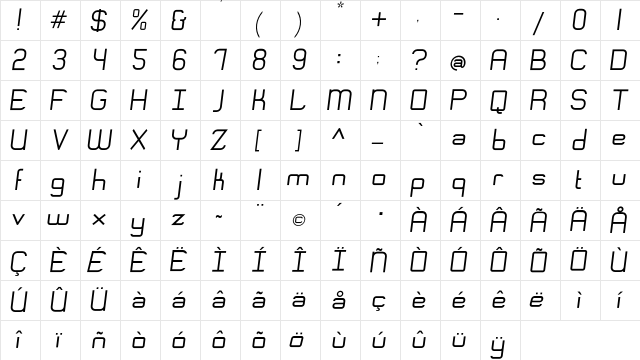
Engadi Regular Oblique
Style: Regular Oblique
Designer: Ben Mahaffey
Design Context for Engadi
Engadi is a composed and adaptable typeface that performs quietly and consistently across a wide range of design contexts. The slanted form adds forward momentum and visual energy.
Pro Tip: Use Engadi for emphasis, pull quotes, and subheadings where its slanted energy can add rhythm to the layout.